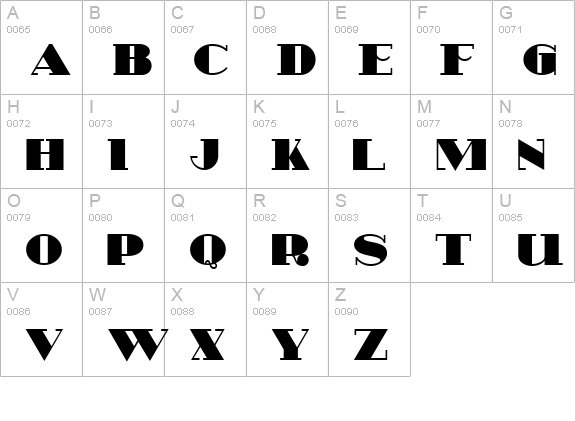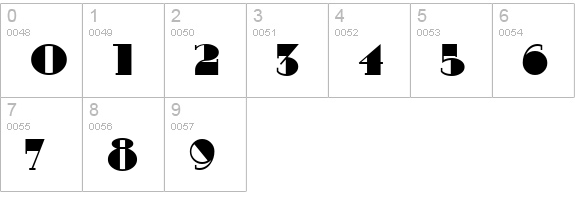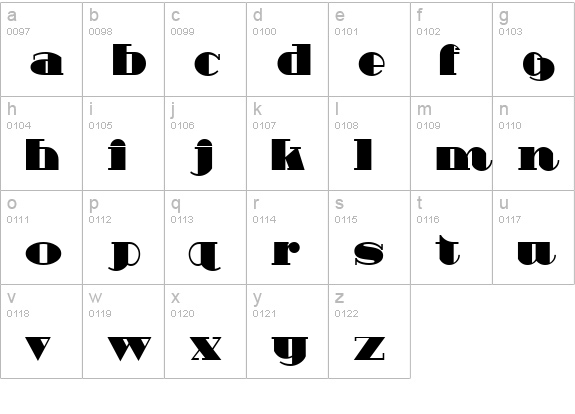
HeavyTripp UltraBold Font Details
HeavyTripp UltraBold is an extra-heavy, attention-grabbing variant in the HeavyTripp typeface family \xE2\x80\x94 well suited to high-impact headlines, posters, and bold branding.
Introducing HeavyTripp UltraBold, a font that exudes power and strength with its bold and commanding presence. This typeface is designed to make a statement, grabbing attention and leaving a lasting impression. Its thick and robust letterforms create a sense of solidity, making it perfect for headlines, logos, and display purposes. With its sleek and modern design, HeavyTripp UltraBold is a versatile font that can be used across various design projects. Whether you're creating an eye-catching poster, designing a striking website, or crafting a powerful branding identity, this font will elevate your work to new heights. But what sets HeavyTripp UltraBold apart is not just its remarkable aesthetics, but also its accessibility. This font is freely available to download at FontsMarket.com, making it accessible to all designers, regardless of budget or resources. We believe that creativity should know no boundaries, and by offering this font for free, we aim to empower designers to explore their artistic potential without limitations. In addition to its accessibility, HeavyTripp UltraBold also offers exceptional legibility, ensuring that your message is delivered with clarity and impact. Each letter is meticulously crafted, with careful attention to detail, resulting in a font that is not only visually striking but also easy to read. So, whether you're working on a design project that demands attention-grabbing headlines or a branding identity that requires a strong and memorable typeface, look no further than HeavyTripp UltraBold. Download this font for free at FontsMarket.com and unleash the power of bold typography in your design endeavors. Let your creativity soar with HeavyTripp UltraBold, where strength, style, and accessibility converge.